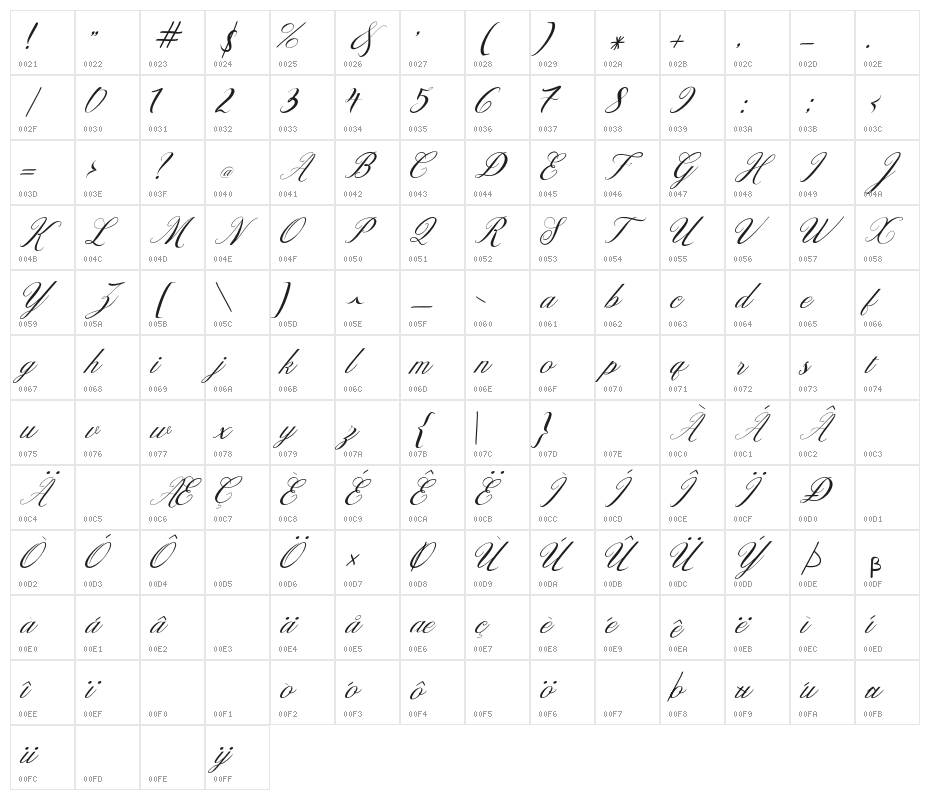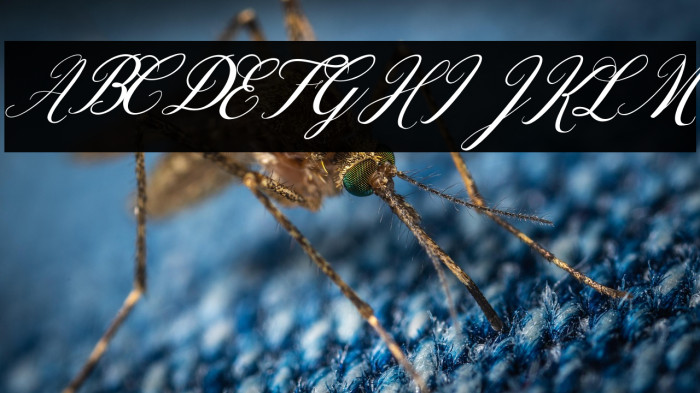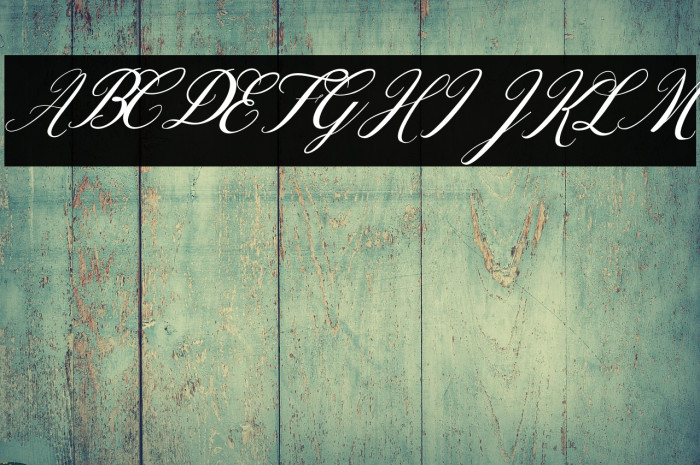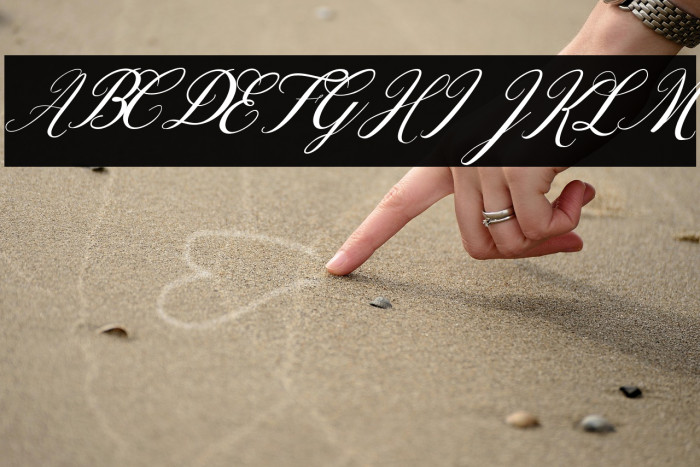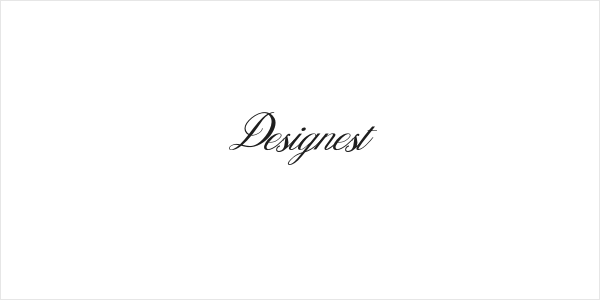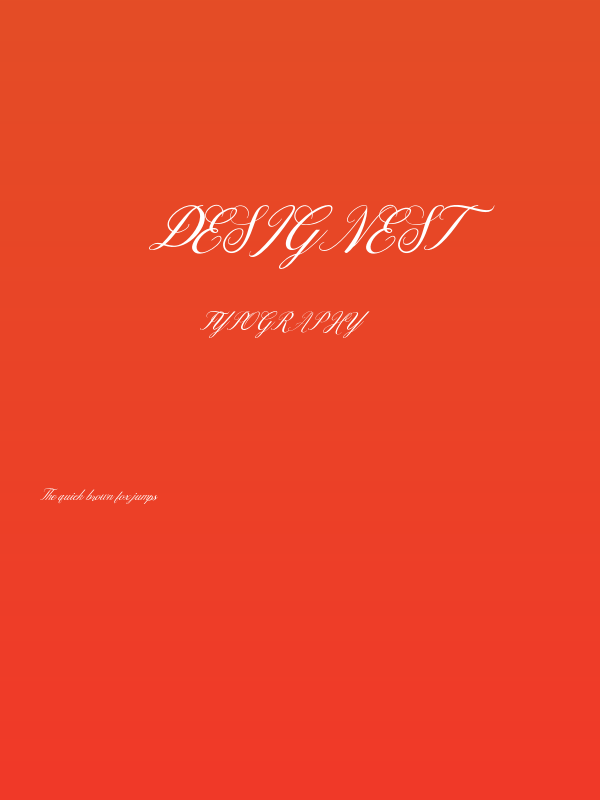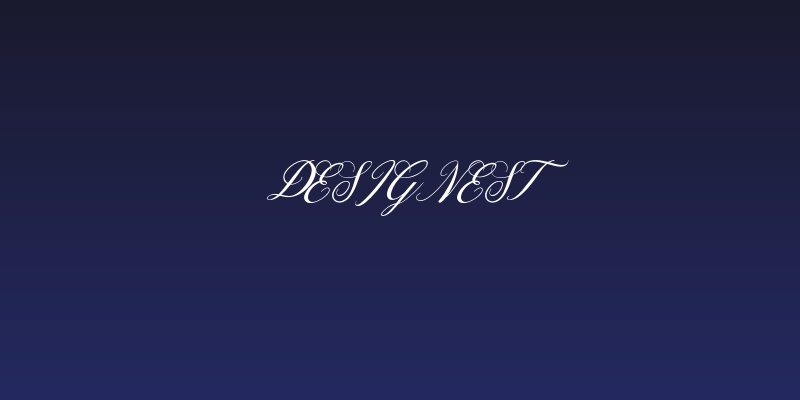
Designest Font
Designest Description
This elegant script font features flowing, cursive strokes that convey a sense of sophistication and grace. The uppercase letters are ornate with intricate loops and swashes, while the lowercase letters maintain a smooth, connected style. The numerals are equally stylish, with a consistent slant and decorative flair. Special characters are designed to complement the overall aesthetic, making this font ideal for formal invitations, branding, and decorative projects. The font's high contrast between thick and thin strokes adds to its refined appearance, making it stand out in any design.
| Overall Style | Elegant, Decorative |
| Use Case | Invitations, Branding, Decorative |
| Proposed Projects | Ideal for wedding invitations, luxury branding, elegant signage, and decorative print materials. |